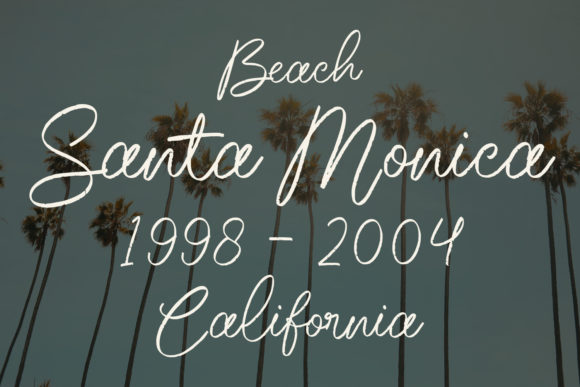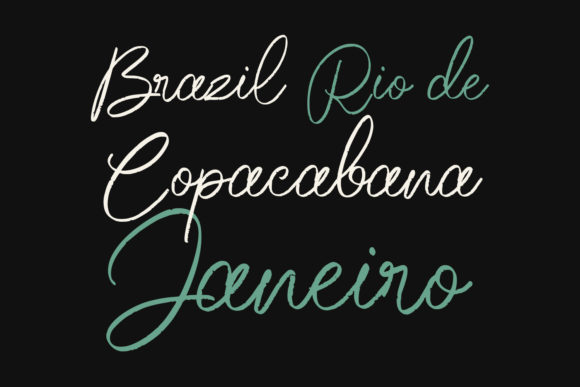
Pacifica Tropics Font
db-ku.com - Script & Handwritten -- Pacifica Tropics is a fancy handwritten script font. It features regular rough strokes, fun characters, ligatures and alternates. Add it to any of your designs, and enjoy the results!